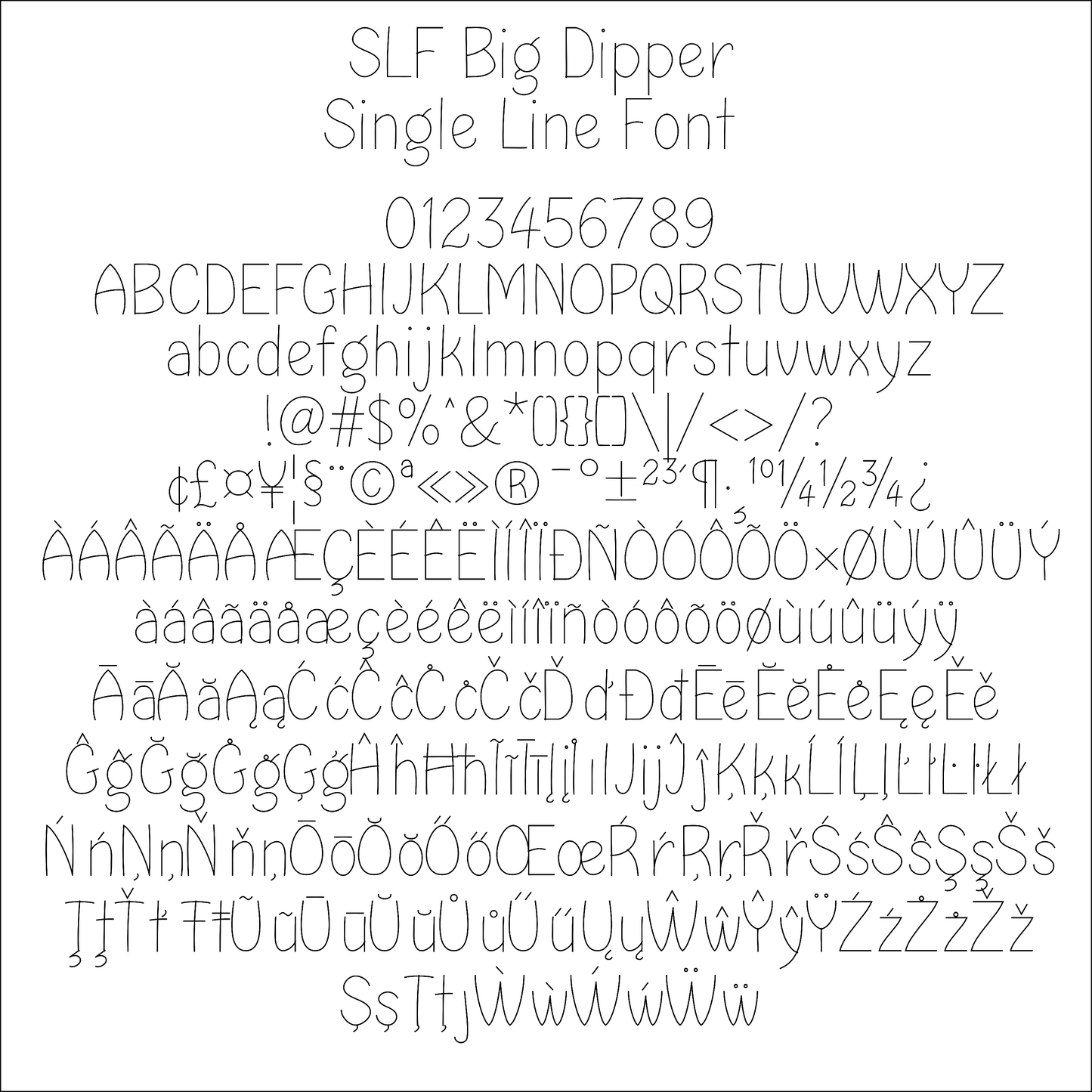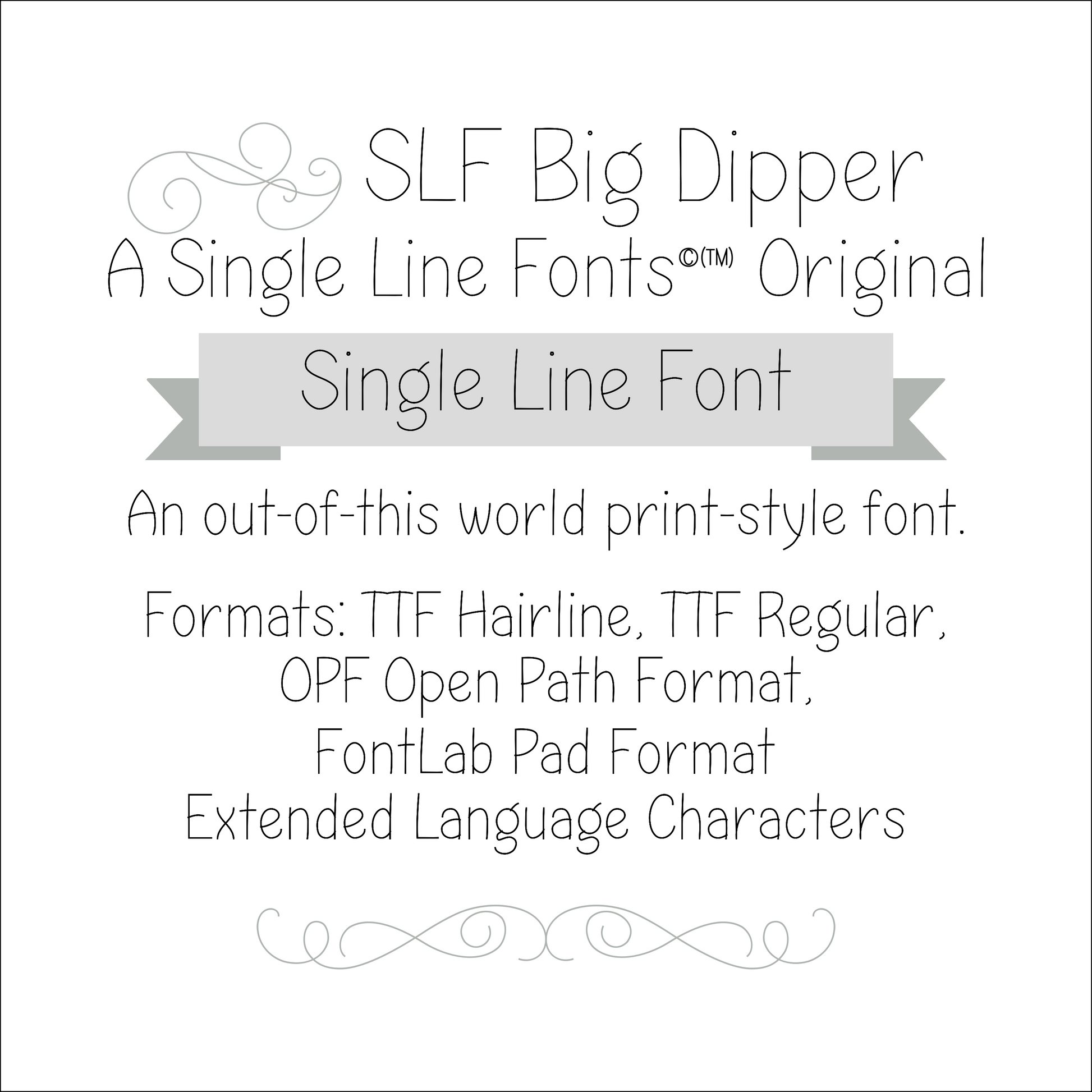
SLF Big Dipper – Single Line Print Font for Engraving & Crafting
SLF Big Dipper is a bold, modern single line font designed for engraving, scoring, sketch tools, CNC routing, and creative crafting. Its strong, geometric letterforms are ideal for clear, impactful text in signage, decor, personalized gifts, labels, and maker projects.
This monoline font includes a full character set with uppercase and lowercase letters, numbers, punctuation, symbols, and accented characters for multilingual support.